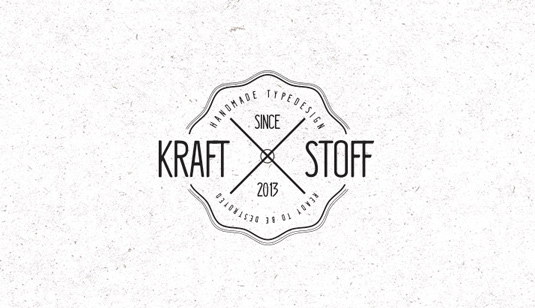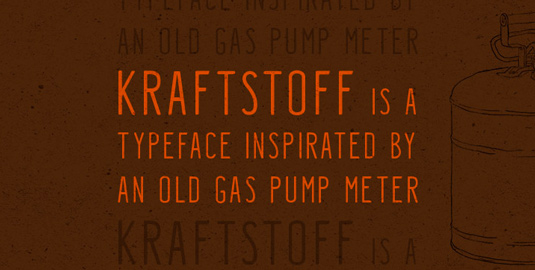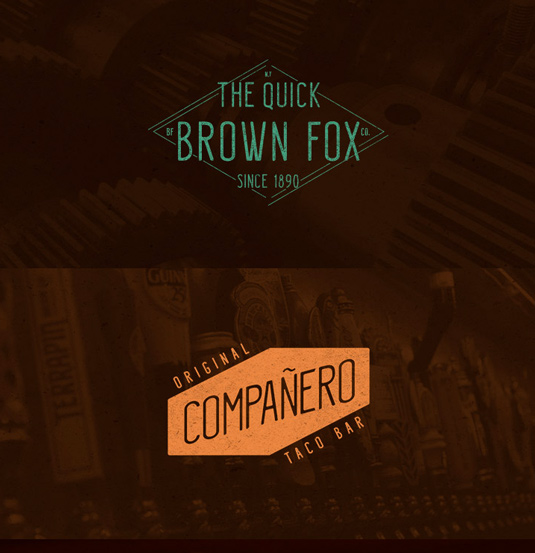
Font of the day: Kraftstoff
Every day we showcase the best fonts on the web. Today it's Kraftstoff by Guilherme Schneider, which is totally free to download.
Kraftstoff by Guilherme Schneider
Today's font of choice, Kraftstoff, was created by New York-based design student Guilherme Schneider. Speaking of the display font, Schnedier comments: "Kraftstoff is a typeface based on antique gas pump meters."